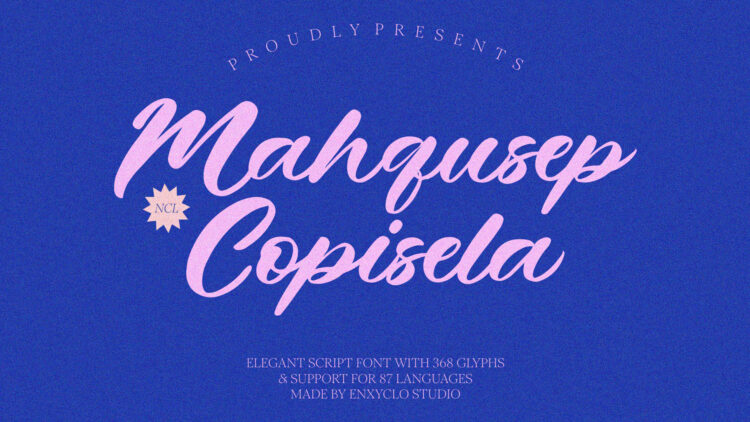
NCL Mahqusep Copisela – Bold Brush Script Font
NCL Mahqusep Copisela – Bold Brush Script Font is a vibrant and sleek script font that exudes sophistication and modernity. With its elegant and crisp design, this font is perfect for a wide range of creative projects. Whether you need it for a wedding invitation, a headline, a billboard, a magazine, a website, a title, a poster, branding, or a logo, NCL Mahqusep Copisela will effortlessly elevate your designs. Its versatility makes it suitable for both large and small point sizes, ensuring that it will always look sharp and refined. Add this stylish and versatile font to your collection and watch your creations come to life.
• Contains 368 Glyphs
• Uppercase & Lowercase
• Numeral, Punctuation & Symbols
• Ligature
• Multilingual Support